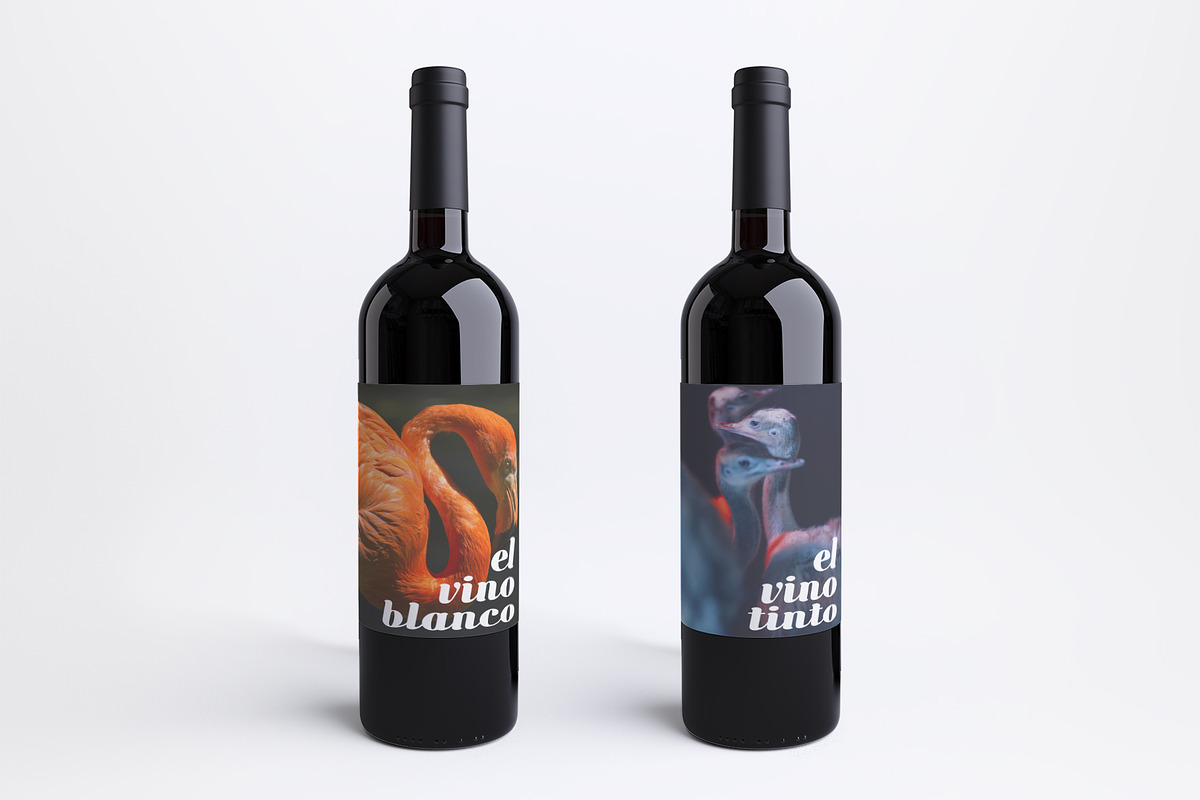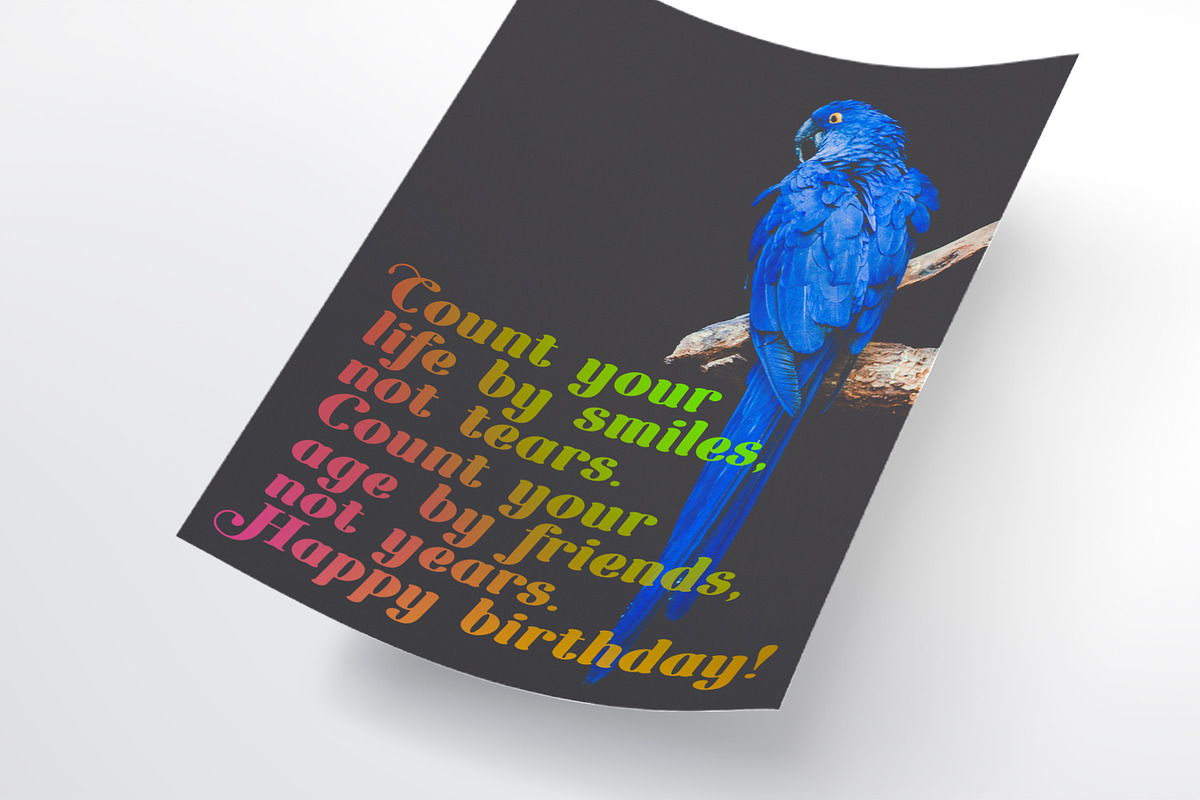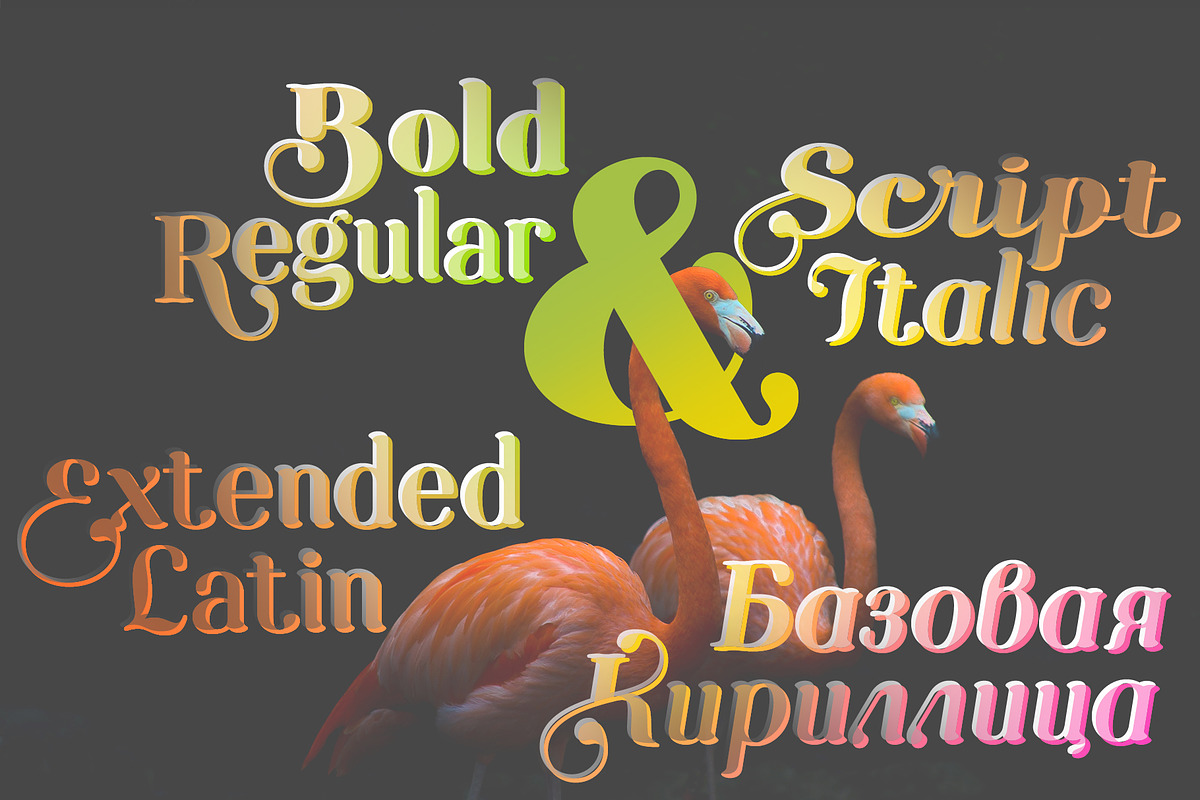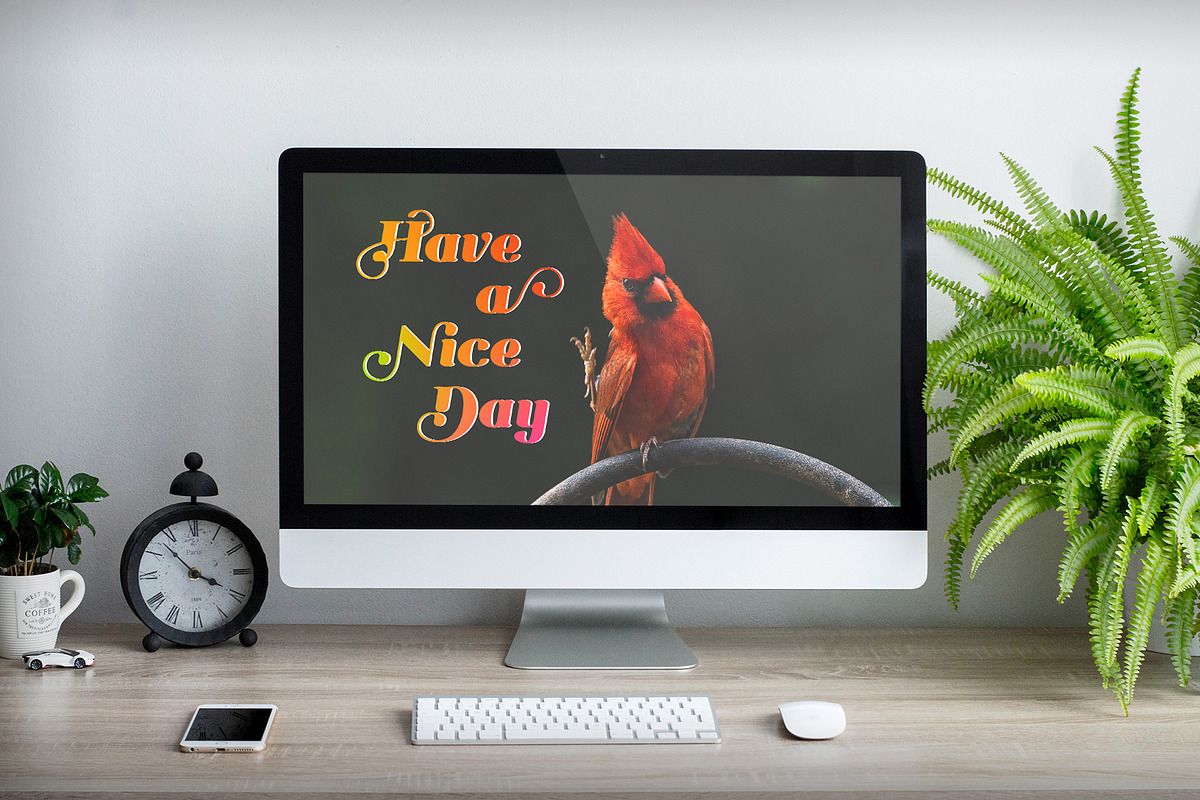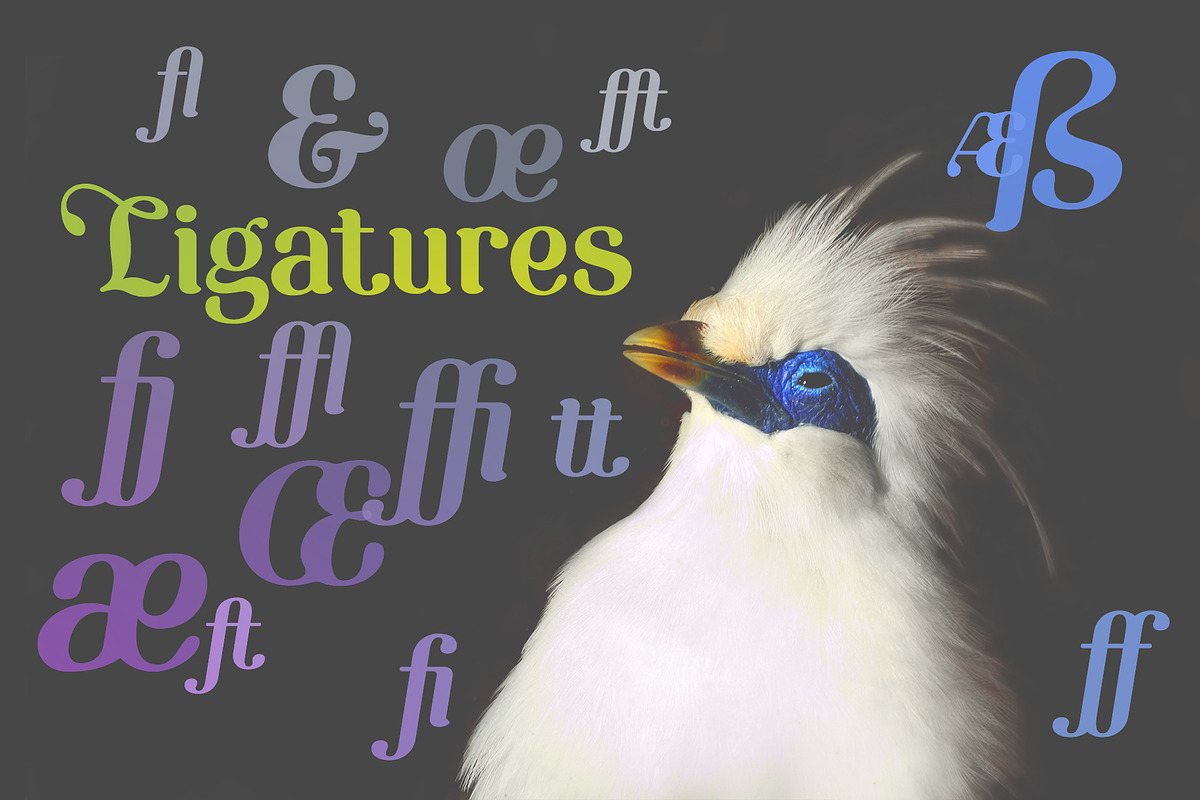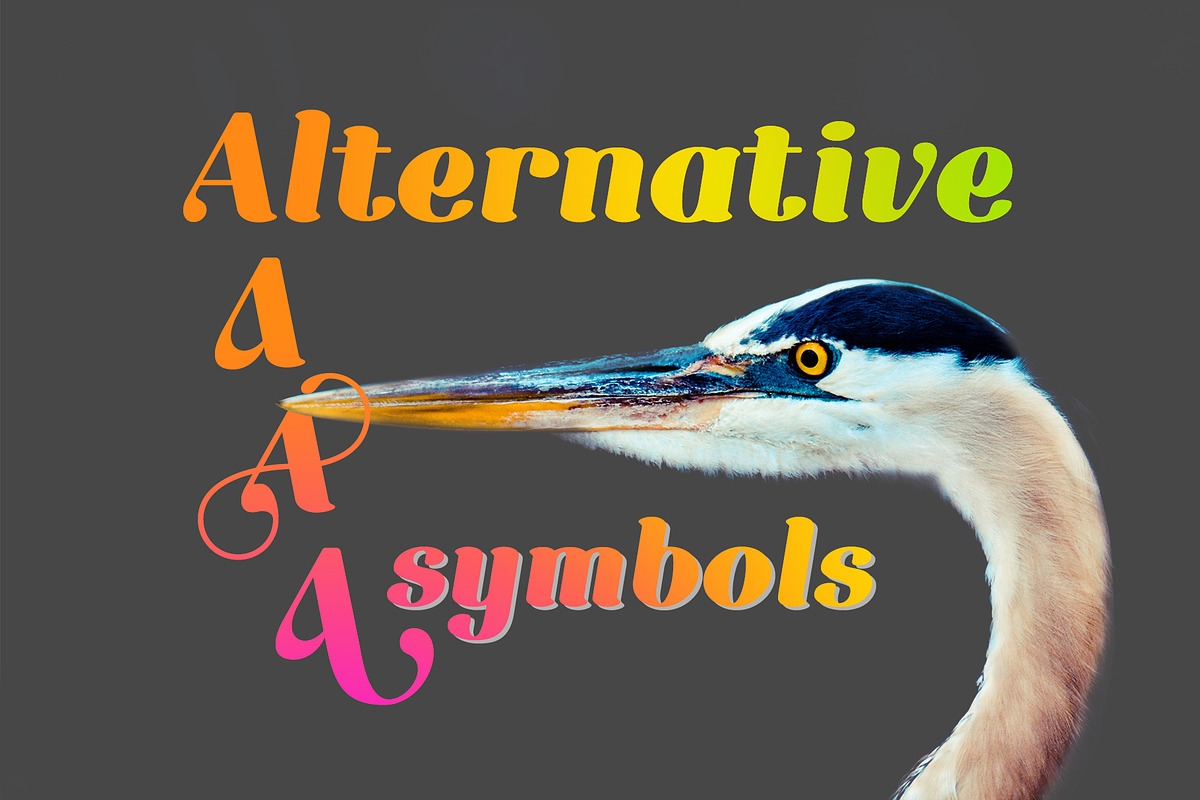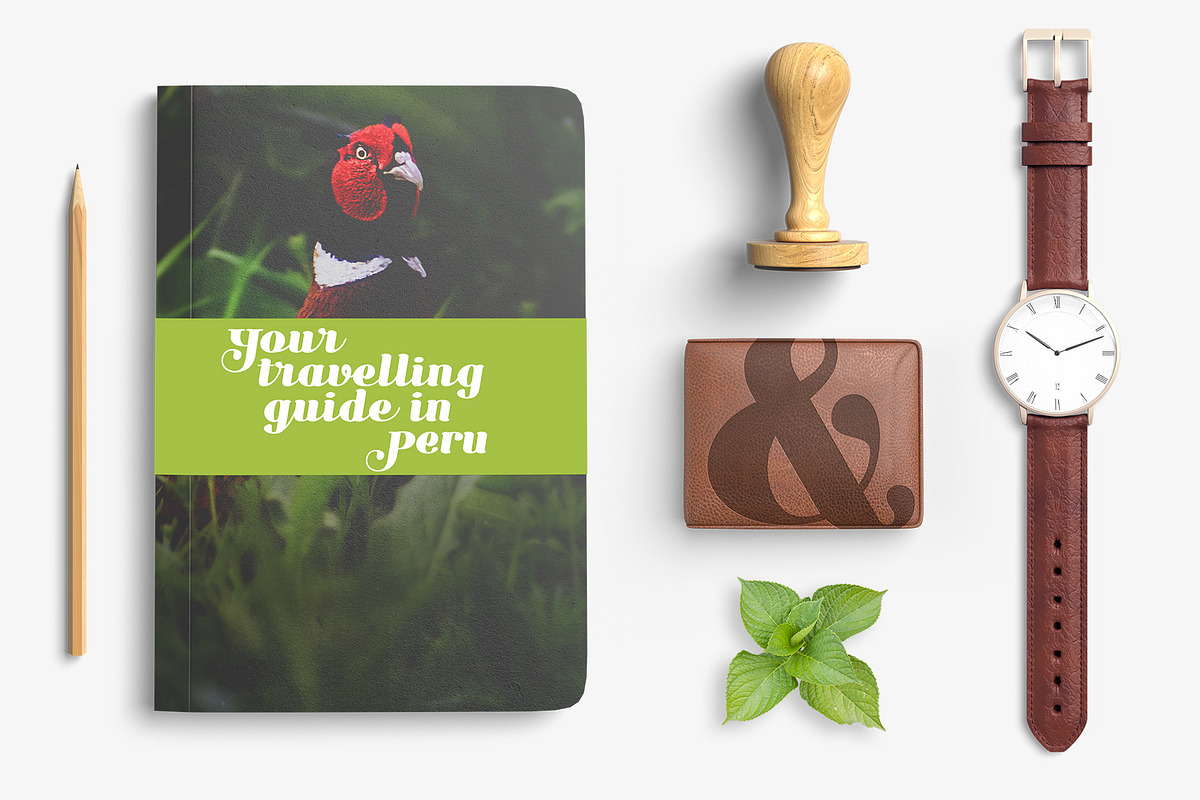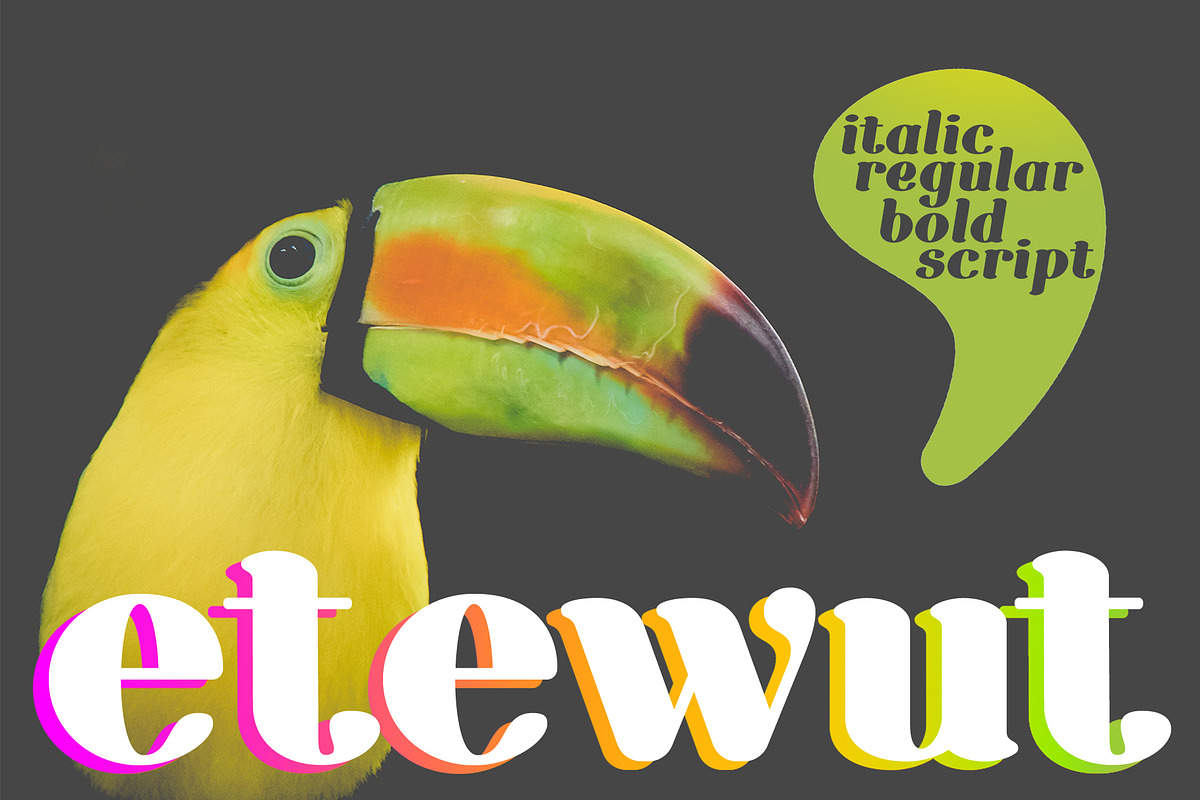
Etewut typeface
Proudly introducing Etewut Serif family. Each font supports extended latin and basic cyrillic alphabet. There are many alternative symbols ligature and special characters.
Etewut Serif Bold Italic
I also added Rough doubles to each of them
Etewut typeface by Etewut fits naturally into Branding, posters, packaging, typography.